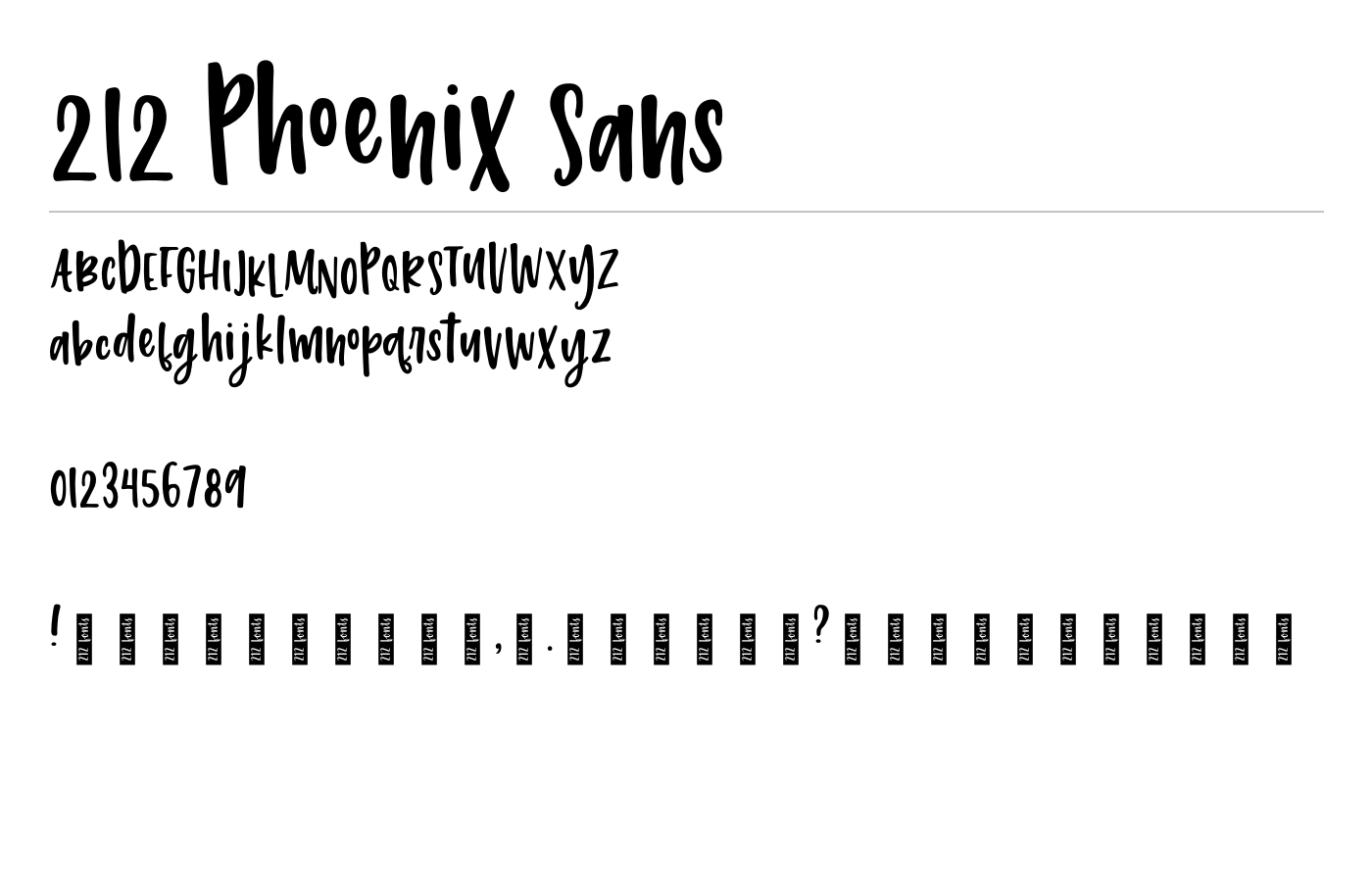
212 Phoenix Sans is a playful and casual sans serif font with a hand-drawn, brush-like aesthetic. It features a tall x-height, uneven stroke widths, and quirky letterforms that give it an energetic and approachable personality. This font works great for fun branding, creative projects, and informal headlines where a friendly and lively vibe is desired.
212 Phoenix Sans Font
About 212 Phoenix Sans Font
| Font family | 212 Phoenix Sans Font |
| Designer | Elizabeth McLain |